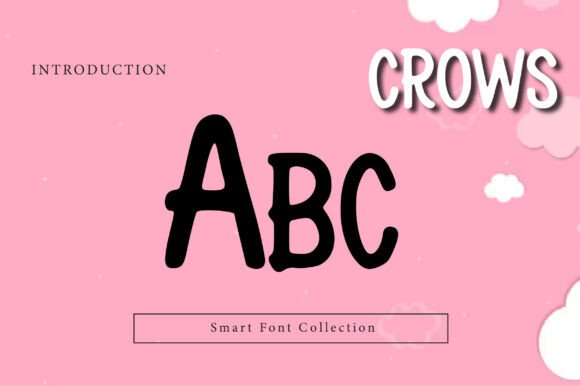
Crows Font: The Ultimate Display Font for Creative Branding and Eye-Catching Typography
In the world of typography, fonts play a crucial role in conveying the tone and personality of a brand. If you’re a designer or crafter looking for a font that can add a bold, playful, and expressive touch to your designs, look no further than Crows Font. This modern, friendly font is designed to bring a casual yet confident feel to any project, making it perfect for creative branding and eye-catching typography.
What Makes Crows Font Stand Out?
Crows Font is a bold, playful, and expressive handwritten display font that boasts a unique character. Its thick strokes, rounded forms, and natural hand-drawn style give it a distinctive look that’s both modern and approachable. With Crows, you can instantly add personality to any design, making it ideal for projects that require a bit of flair and whimsy.
Crows Font is incredibly versatile and can be used in a wide range of design projects. Some of the most popular uses for this font include:
- Logos: Crows Font is perfect for creating bold, eye-catching logos that make a statement.
- Posters: Add a playful touch to your posters with Crows Font’s bold, handwritten style.
- Packaging: Make your product packaging stand out with Crows Font’s unique and energetic vibe.
- Social Media Designs: Use Crows Font to add a personal touch to your social media designs and make them more engaging.
- Product Labels: Crows Font is ideal for creating product labels that need to be both informative and visually appealing.
- Quotes: Add a touch of personality to your quotes with Crows Font’s bold and expressive style.
- Headlines: Use Crows Font to create attention-grabbing headlines that draw the reader in.
- Merchandising Projects: Crows Font is perfect for creating fun and playful merchandising projects, such as t-shirts, mugs, and more.
Why Designers and Crafters Love Crows Font
So, why do designers and crafters love Crows Font? Here are just a few reasons:
- Highly Readable: Despite its bold style, Crows Font is highly readable, even in larger sizes.
- Warm and Human Touch: Crows Font has a warm and human touch that makes it perfect for designs that need to feel approachable and unique.
- Unique and Energetic: Crows Font adds a unique and energetic vibe to any design, making it perfect for projects that need to stand out.
- Modern and Friendly: Crows Font has a modern and friendly character that makes it perfect for designs that need to feel fresh and contemporary.
Tips for Using Crows Font
Here are a few tips for getting the most out of Crows Font:
- Use it as a Display Font: Crows Font performs best as a display font in larger sizes, where its unique curves and bold weight shine the most.
- Experiment with Colors: Crows Font looks great in a variety of colors, so don’t be afraid to experiment and find the perfect hue for your design.
- Pair it with Other Fonts: Crows Font pairs well with a variety of other fonts, so feel free to get creative and find the perfect combination for your design.